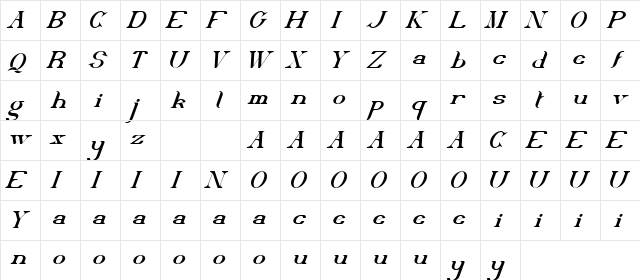
Delith Demo Italic
| Foundry | NihStudio |
| Designer | Nouval & Suci Anita |
Design Context for Delith Demo Typeface
Delith Demo offers clean, dependable letterforms without strong stylistic allegiance, making it a practical choice for designers who need flexibility. The dynamic lean of this cut emphasises speed and emphasis in any layout.